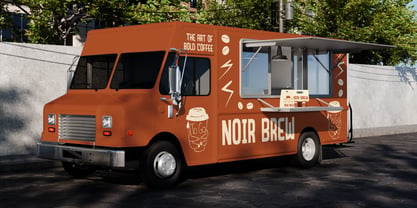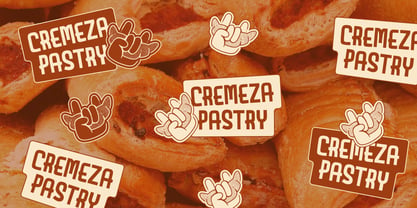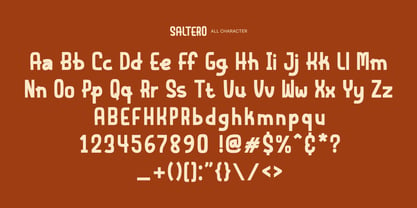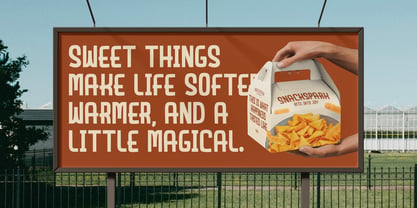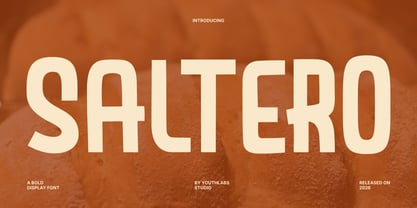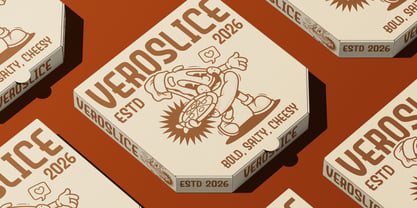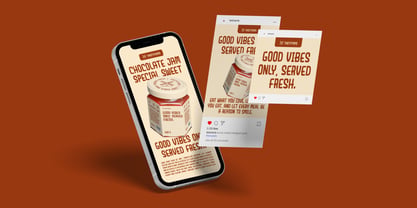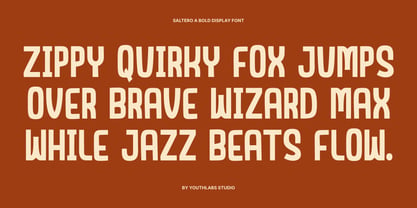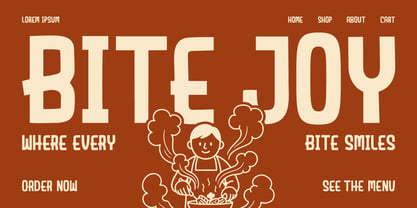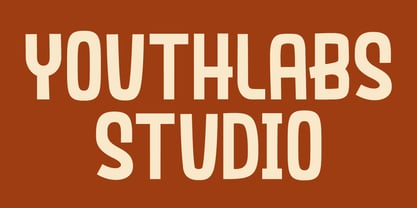
Saltero
by Youthlabs
The Saltero Font Family was designed by Fathi Al Ghazi and published by Youthlabs. Saltero contains 3 styles and family package options. More about this family
Saltero is a bold display font with smooth curves and confident shapes inspired by warmth, comfort, and modern simplicity. Its friendly yet strong character makes it perfect for food branding, bakery packaging, posters, menus, logos, and bold headlines. Saltero delivers a soft visual tone while maintaining excellent readability, making it ideal for both commercial and editorial designs.